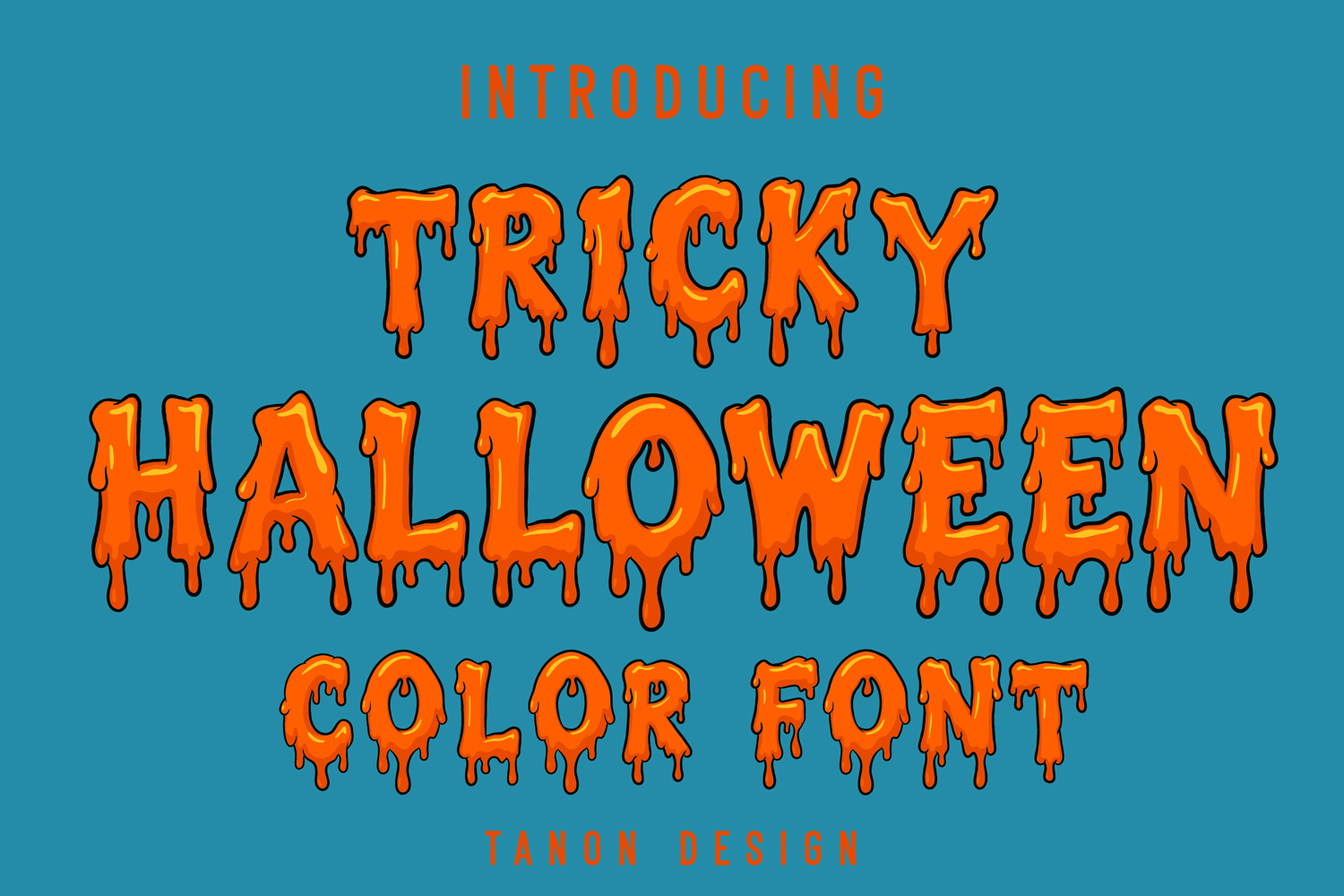
Tricky Halloween
Tricky Halloween Bitmap SVG color font is a fun and festive display font. It will look fantastic on all your designs including t-shirt designs, mug designs, digital designs, crafts, cards, and any projects!